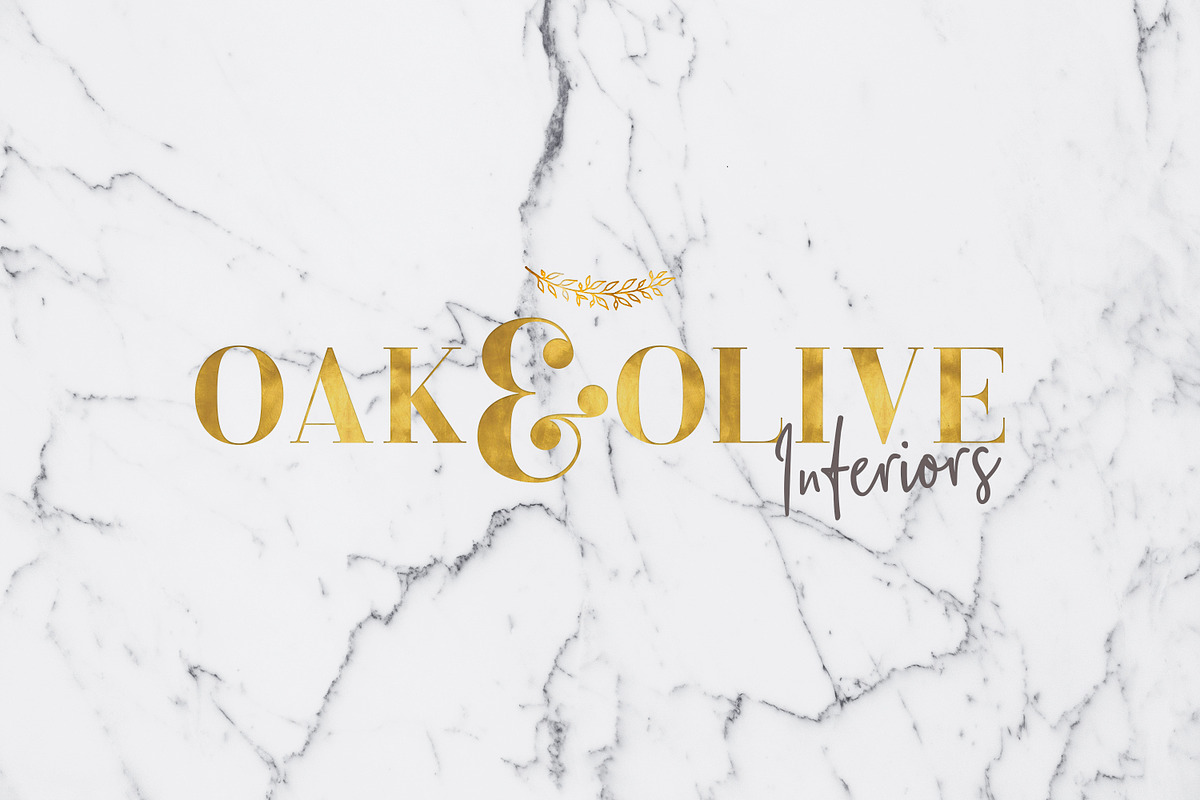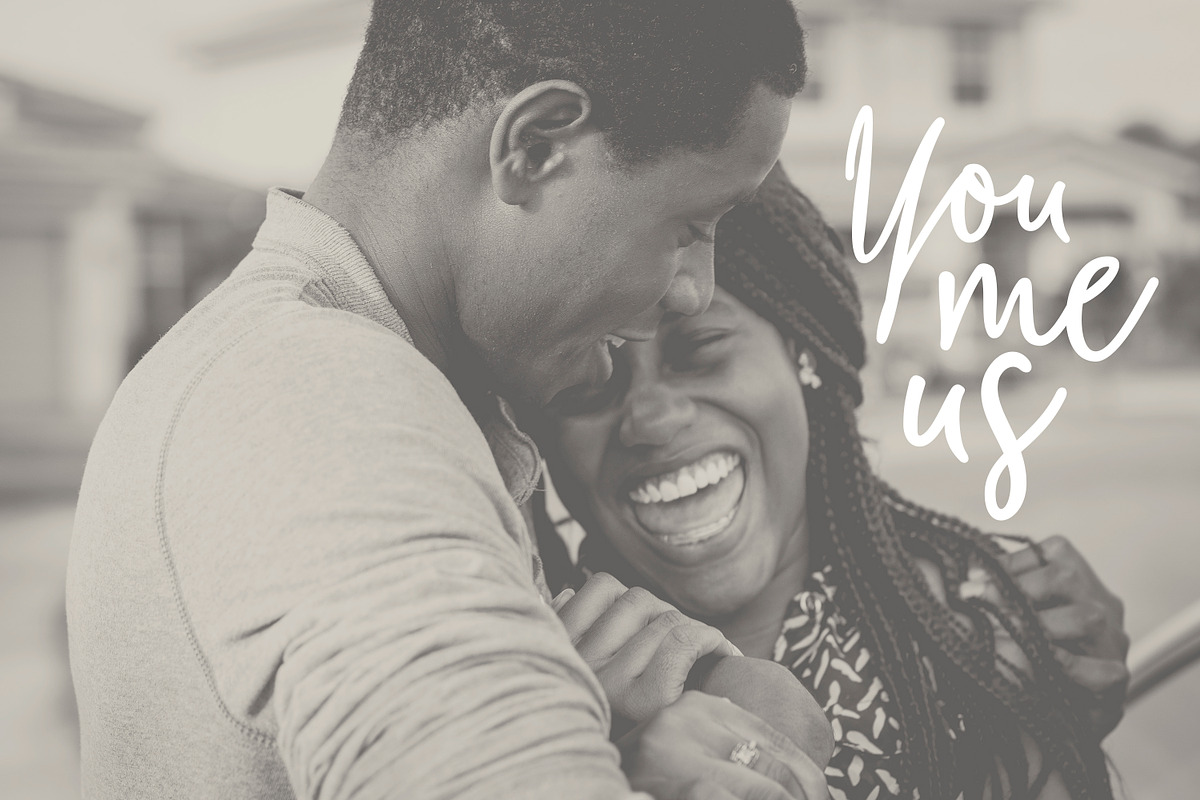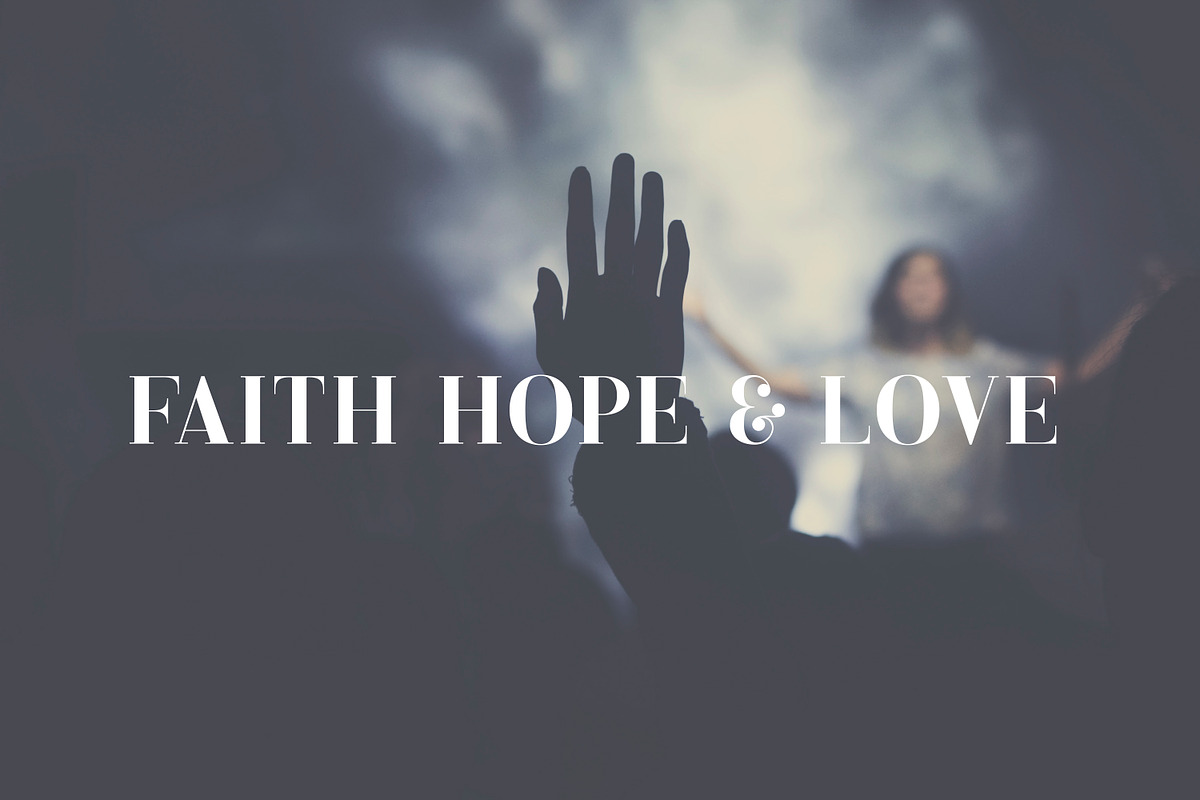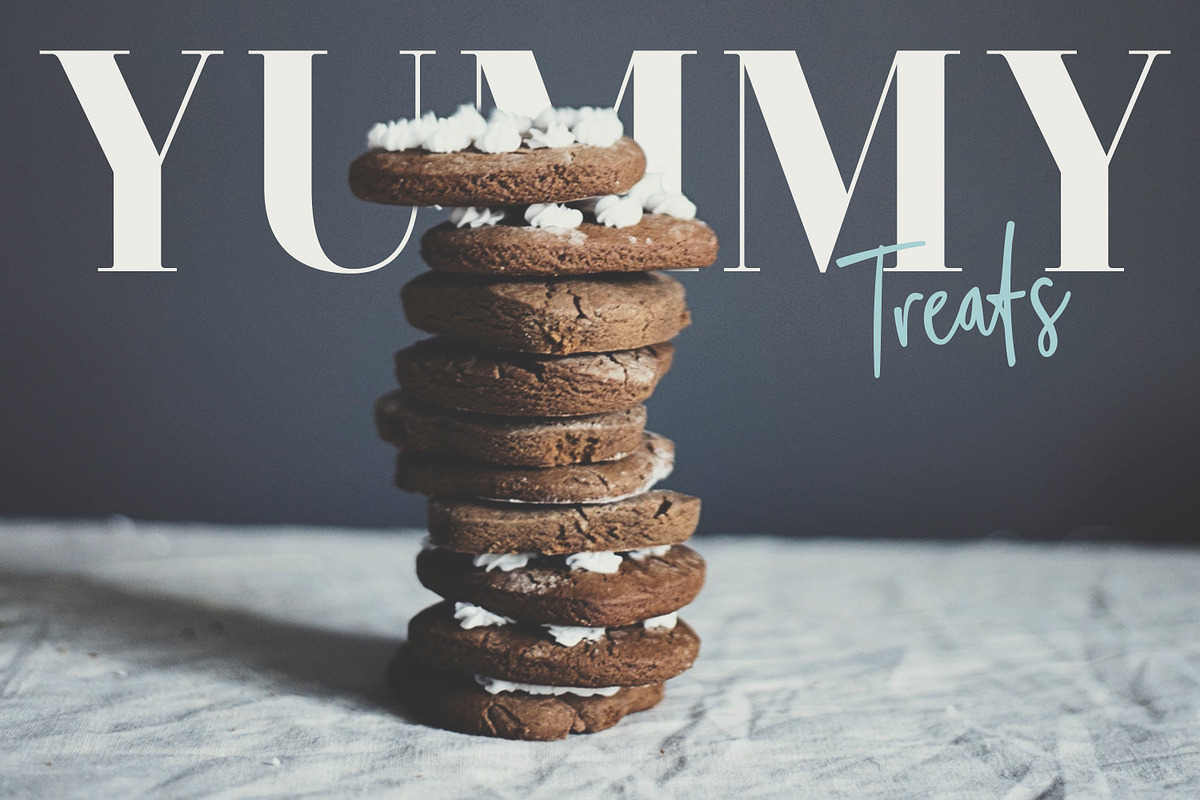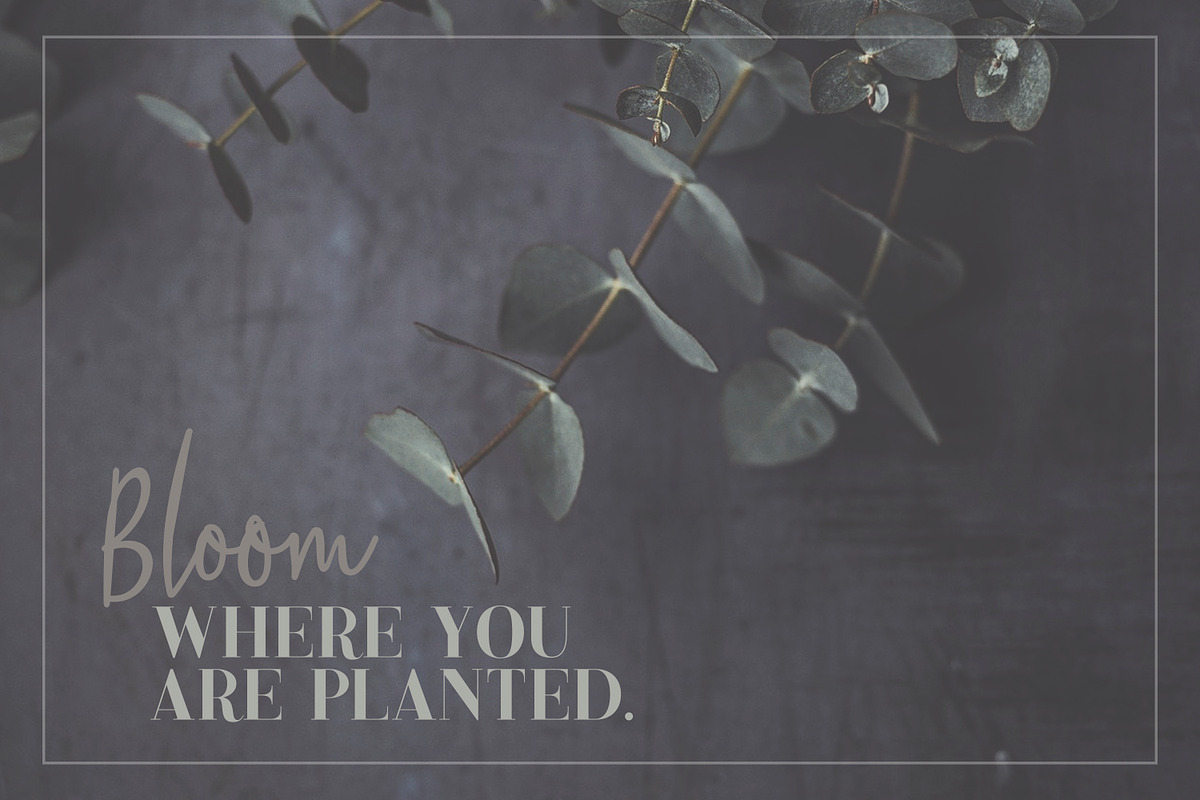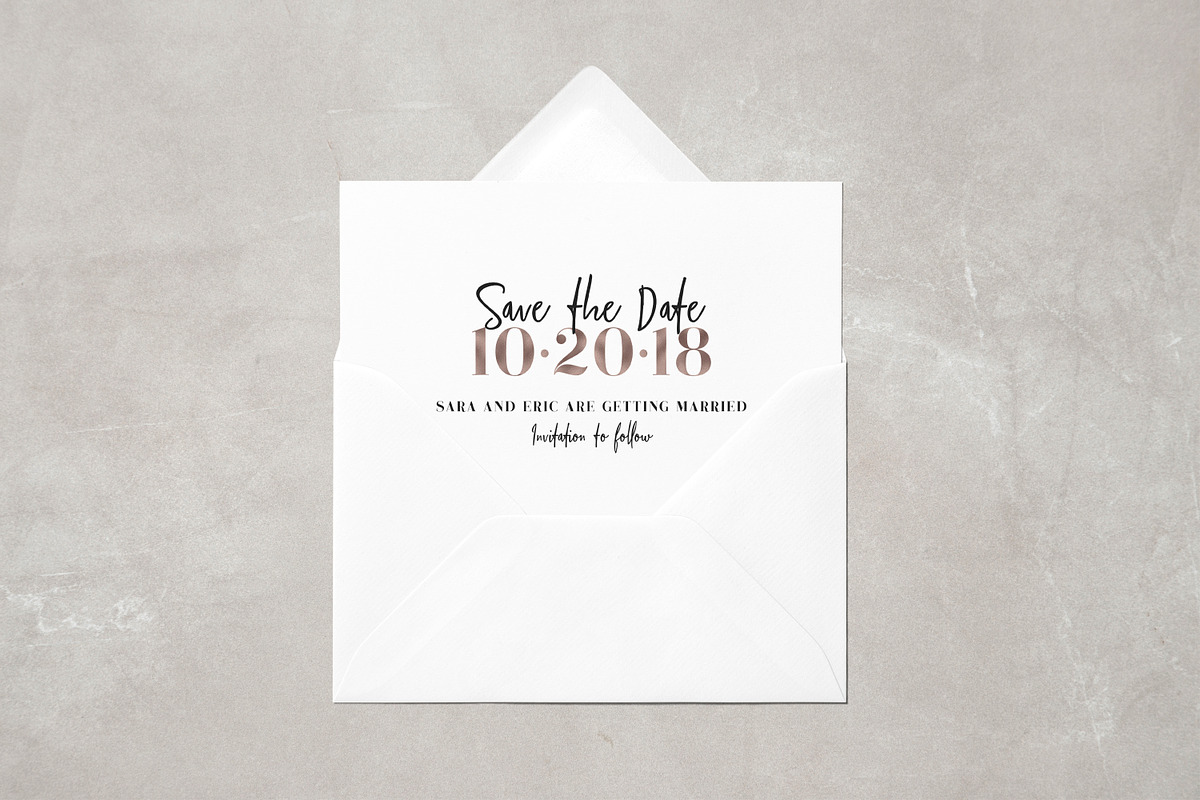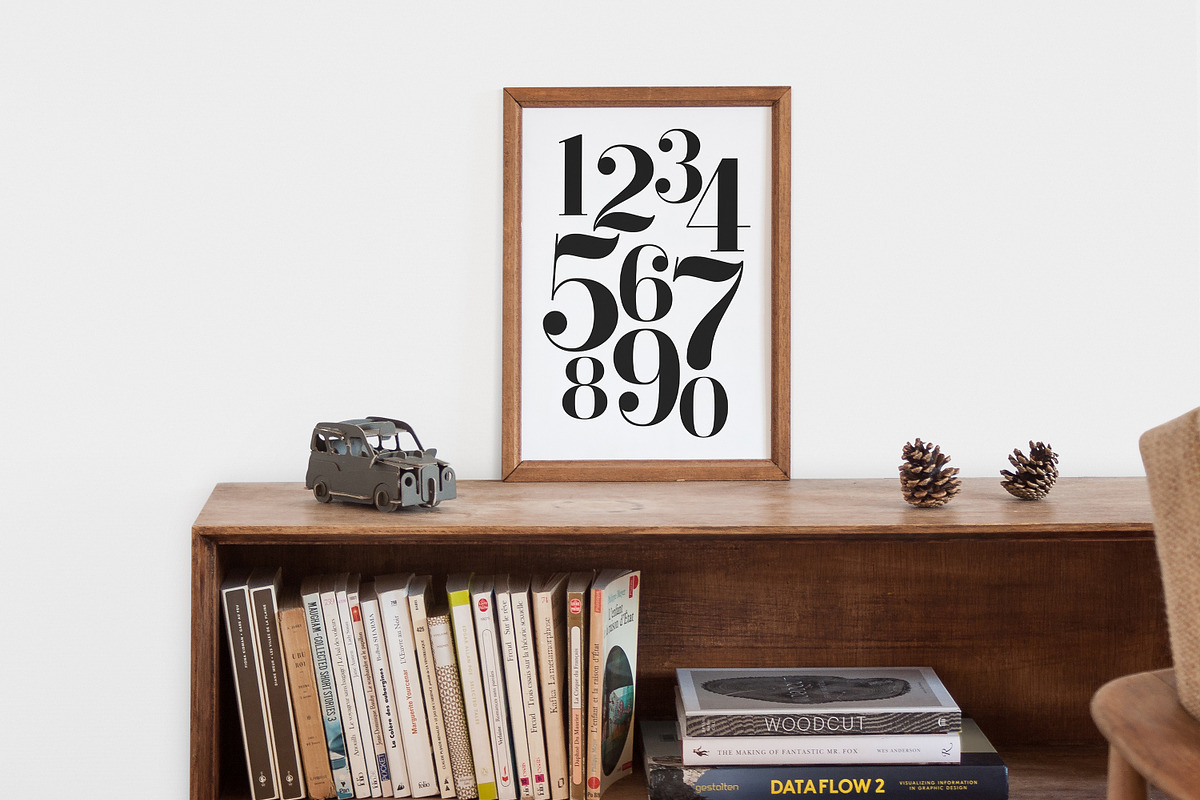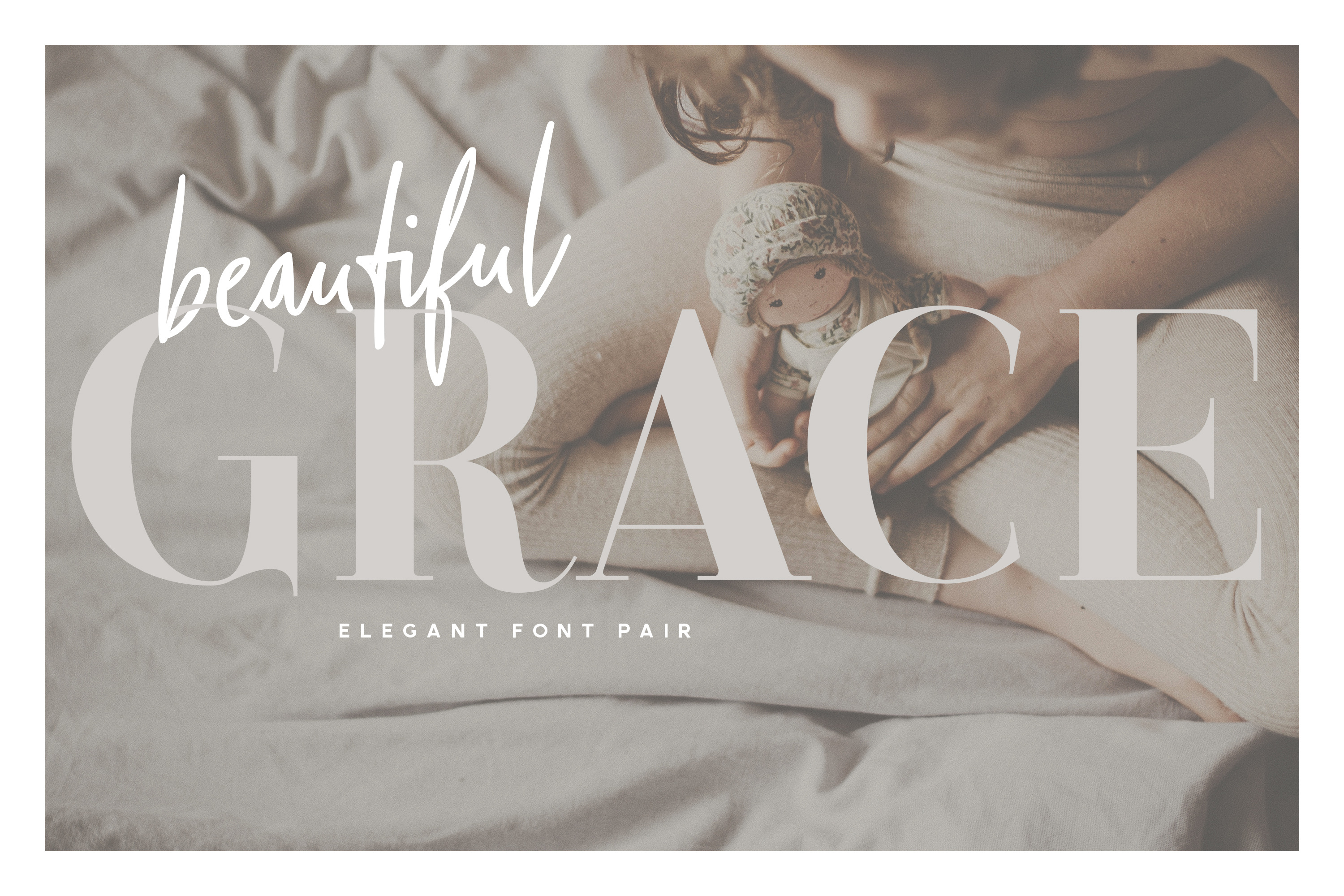
Beautiful Grace - Elegant Font Pair
Introducing Beautiful Grace, an elegant script and serif font duo. With a bold serif and contemporary script, the pair complement each other well. Beautiful Grace is perfect for a multitude of projects, including logos & branding, social media graphics, wedding stationery & packaging.
Beautiful Grace Script - A hand written signature style script, hand drawn and remaster on the computer for a smooth flowing style. If you have OpenType switched on you have access to alternative double characters.
Beautiful Grace Serif - A sophisticated serif, bold, clean and elegant.